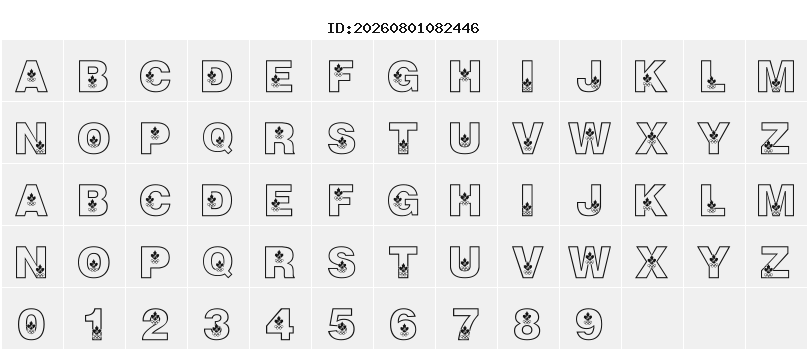
LMS Canadian Olympic Spirit Preview
• Font Name: LMS Canadian Olympic Spirit
About LMS Canadian Olympic Spirit.ttf
LMS Canadian Olympic Spirit.ttf is a modern, elegant sans-serif font designed for ultimate readability and visual harmony. Perfect for branding, headlines, web design, and print materials.